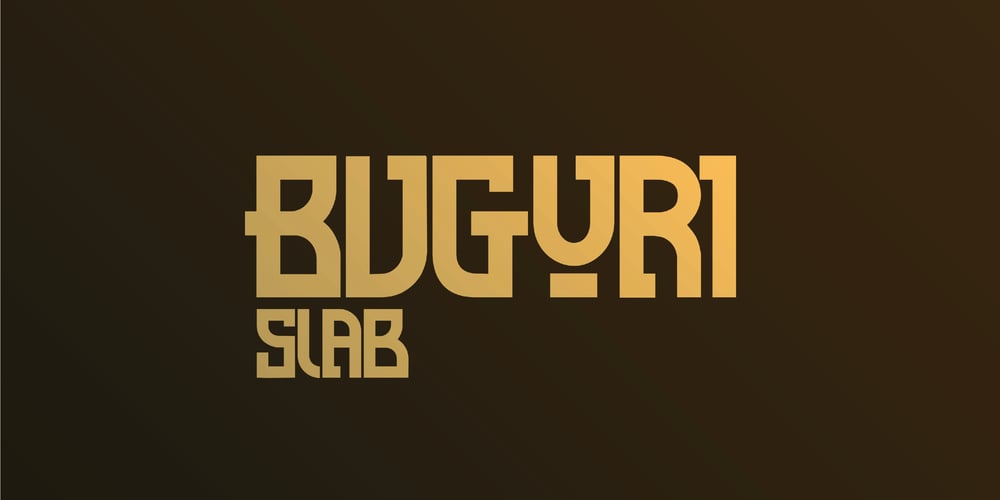
Buguri Slab Font Family was designed by Jarnawi Saja and published by Grontype. Buguri Slab contains 1 styles and family package options. Buguri Slab is a Bold, Modern and Tough Serif font. This font is kerned tightly to give a solid and strong impression. It comes with more variation and alternates. The fonts can be applied on T-shirts, Company brands, Book cover flyers and especially for the Gamers Tagline Logo.Features Every Glyph has Alternates Multilingual Support Numerals and Punctuations Thankyou For Downloading Grontype’s Fonts. Enjoy!